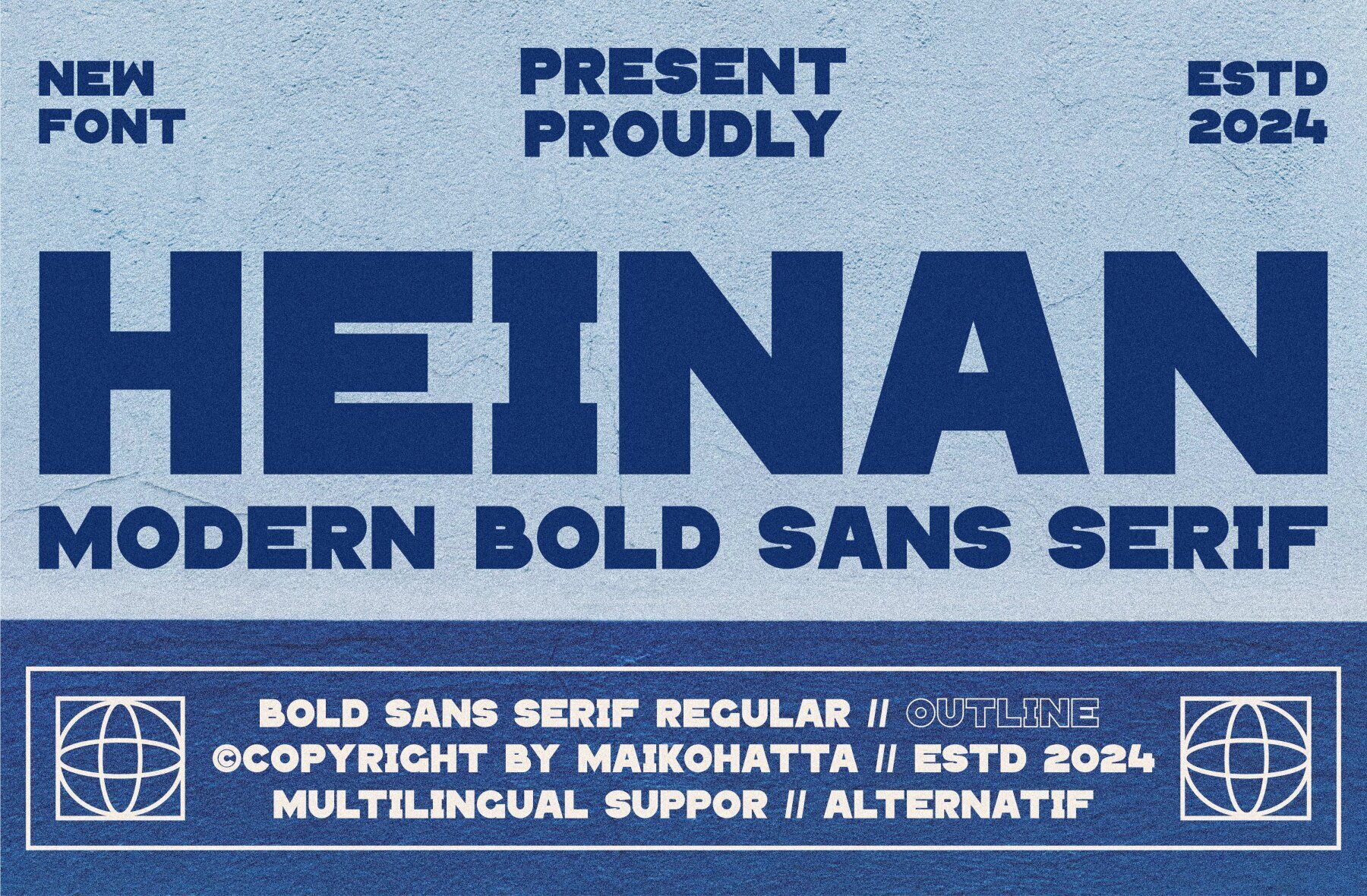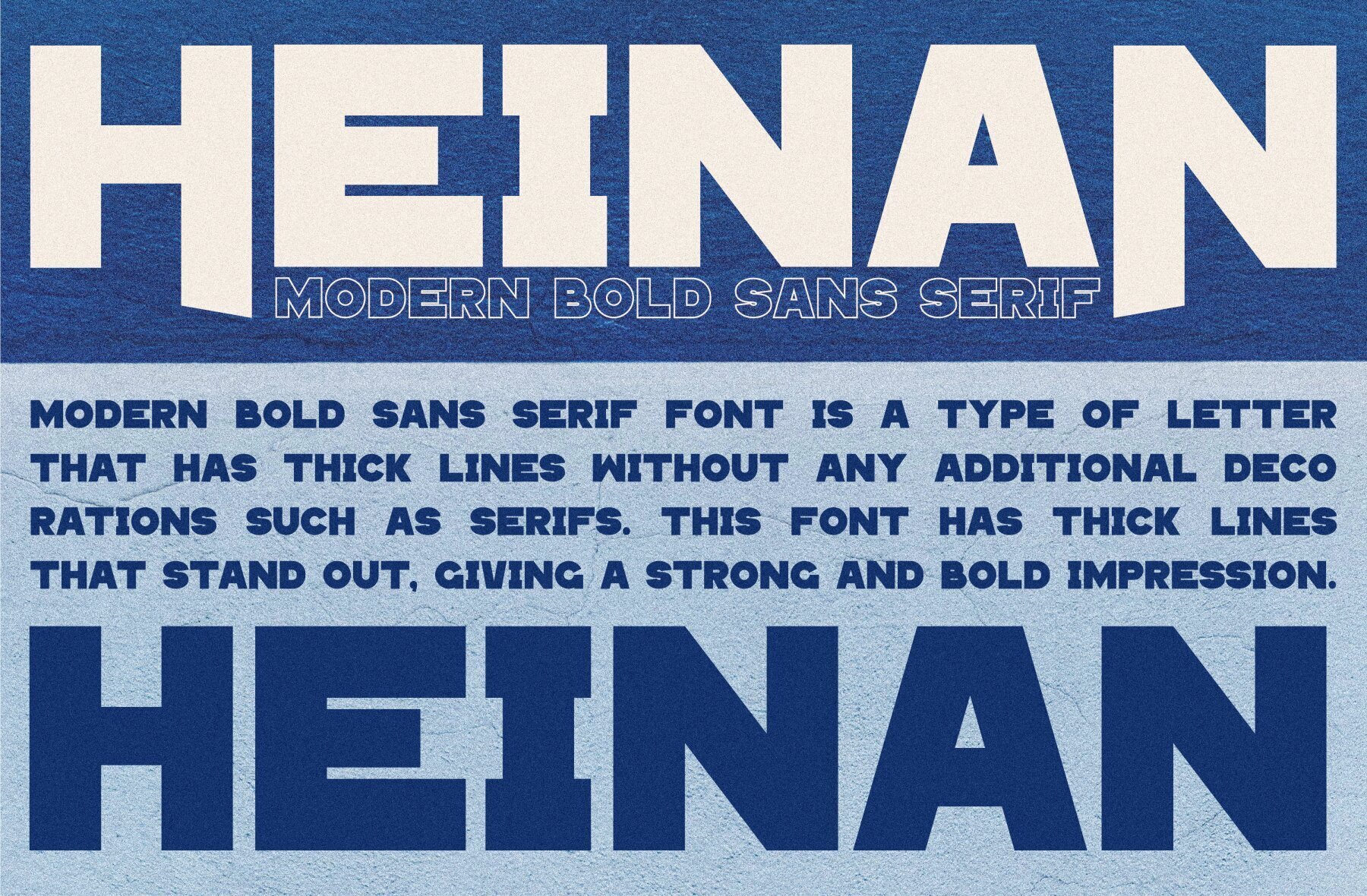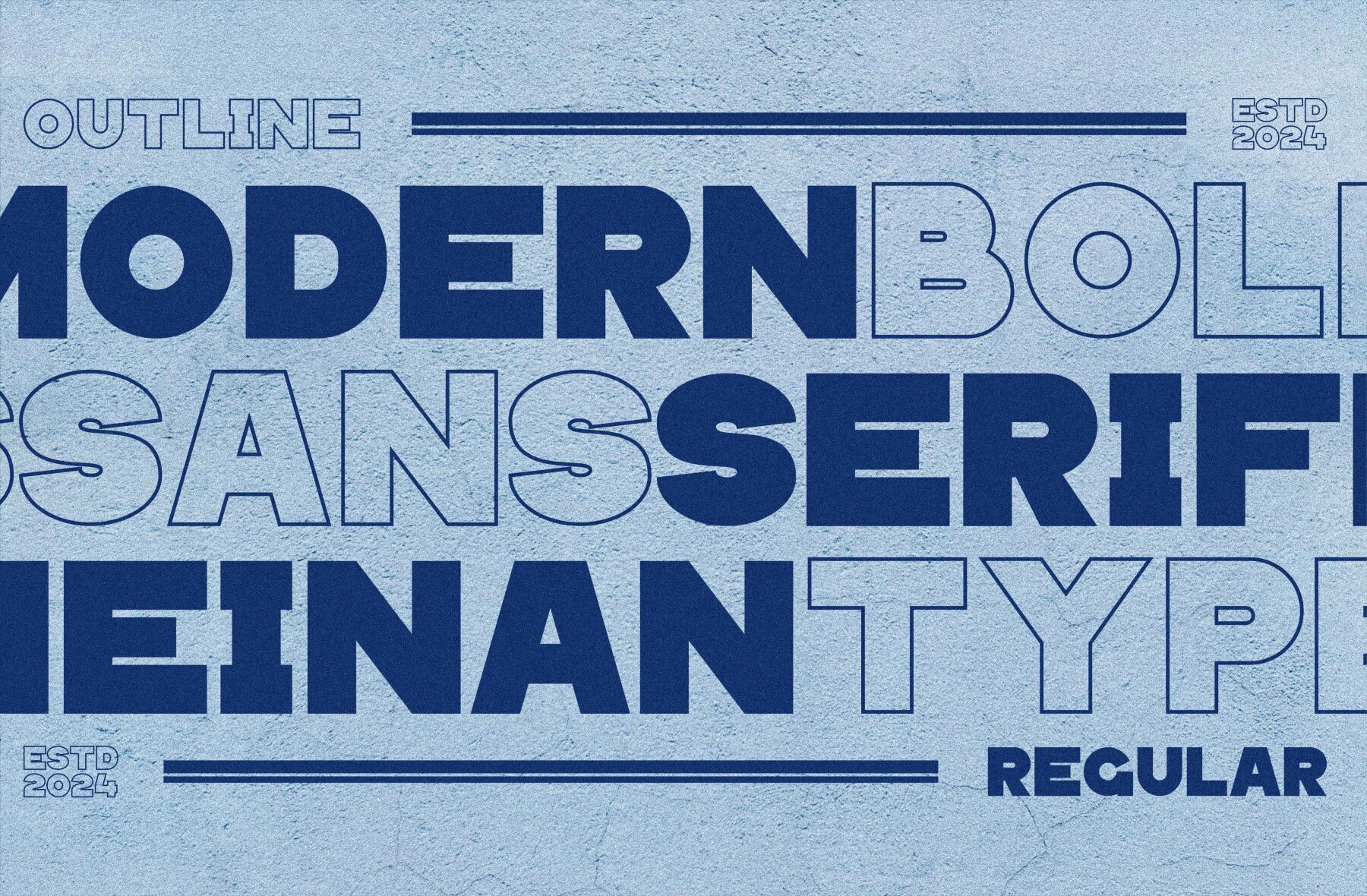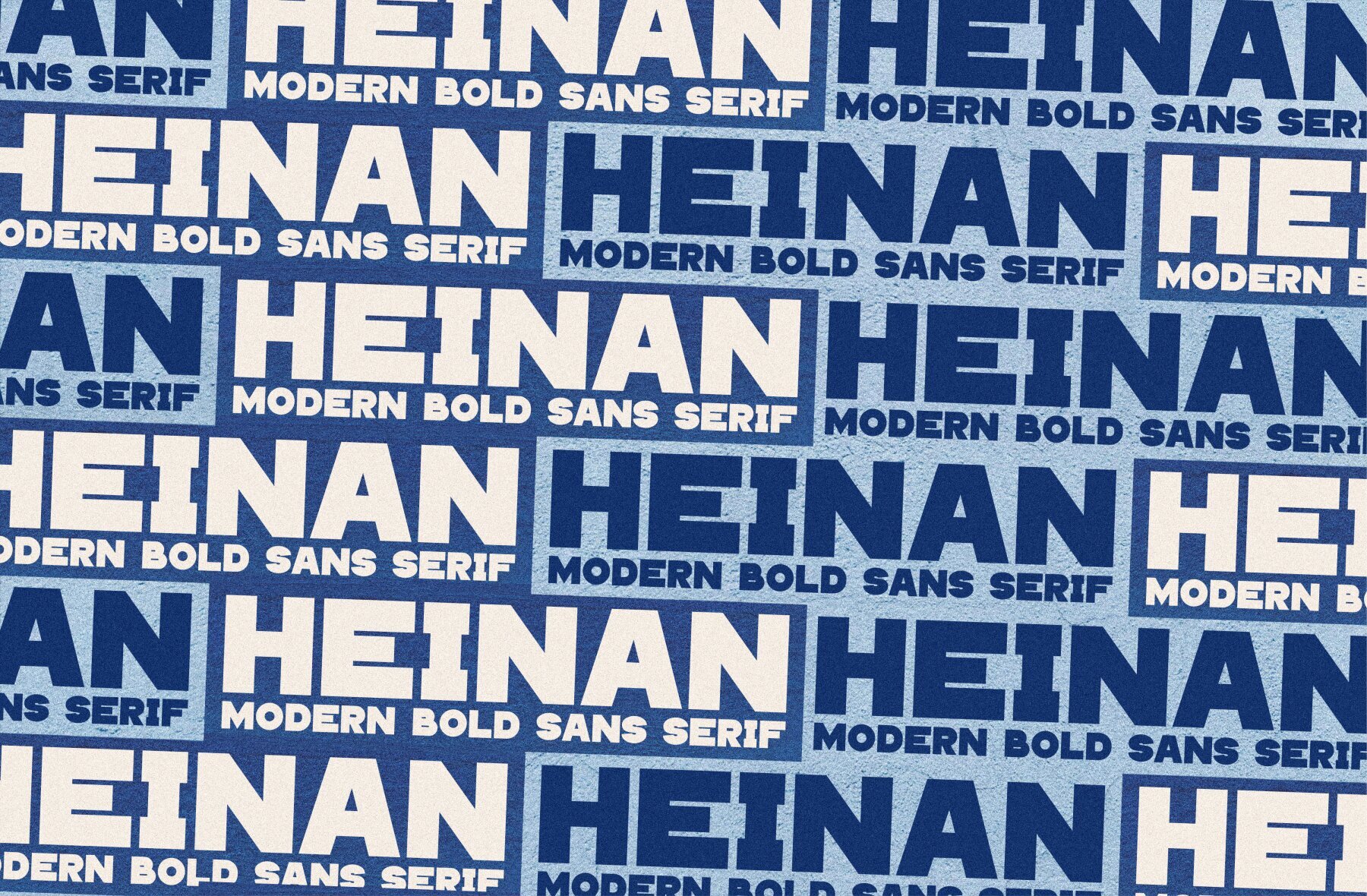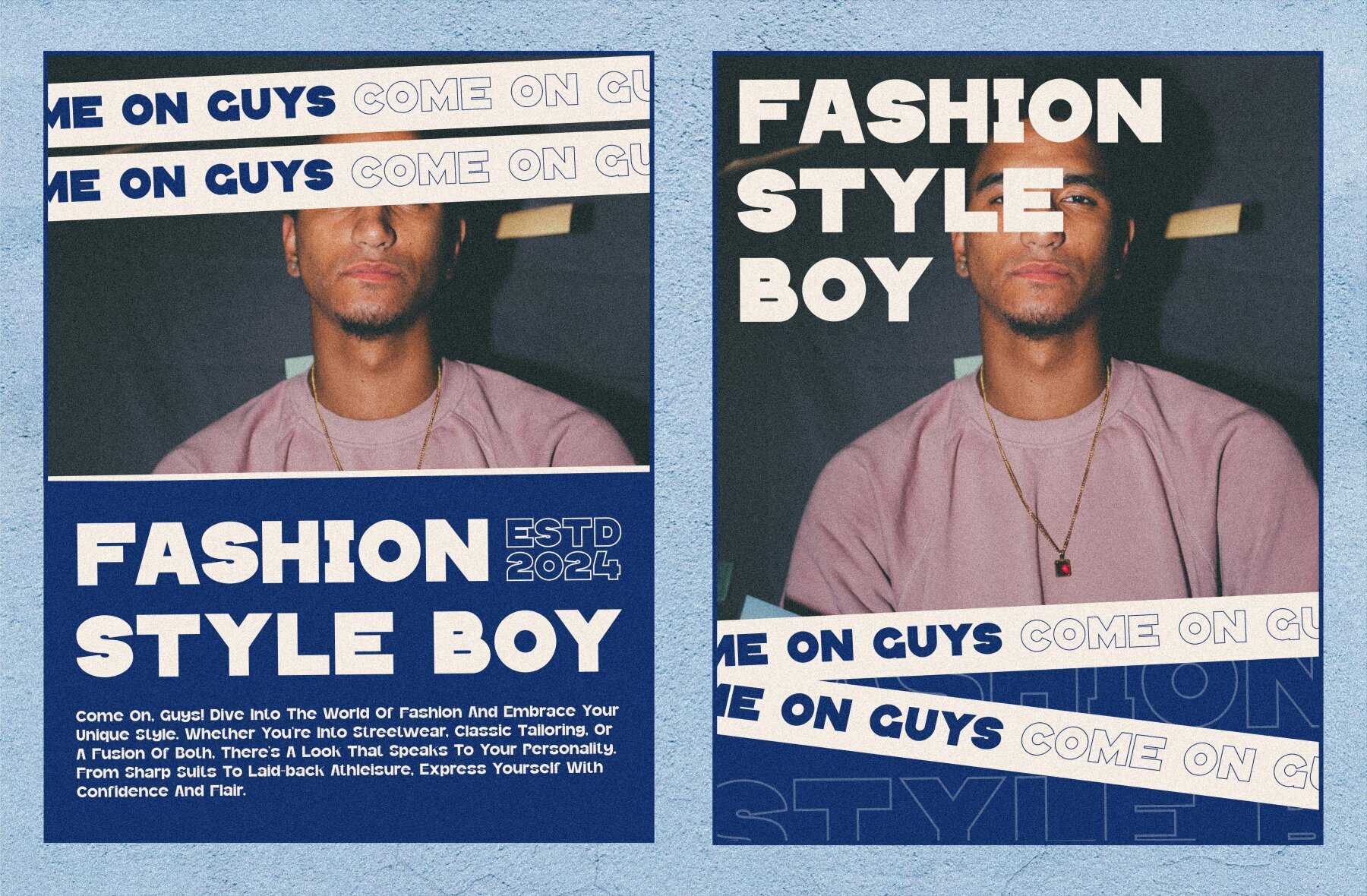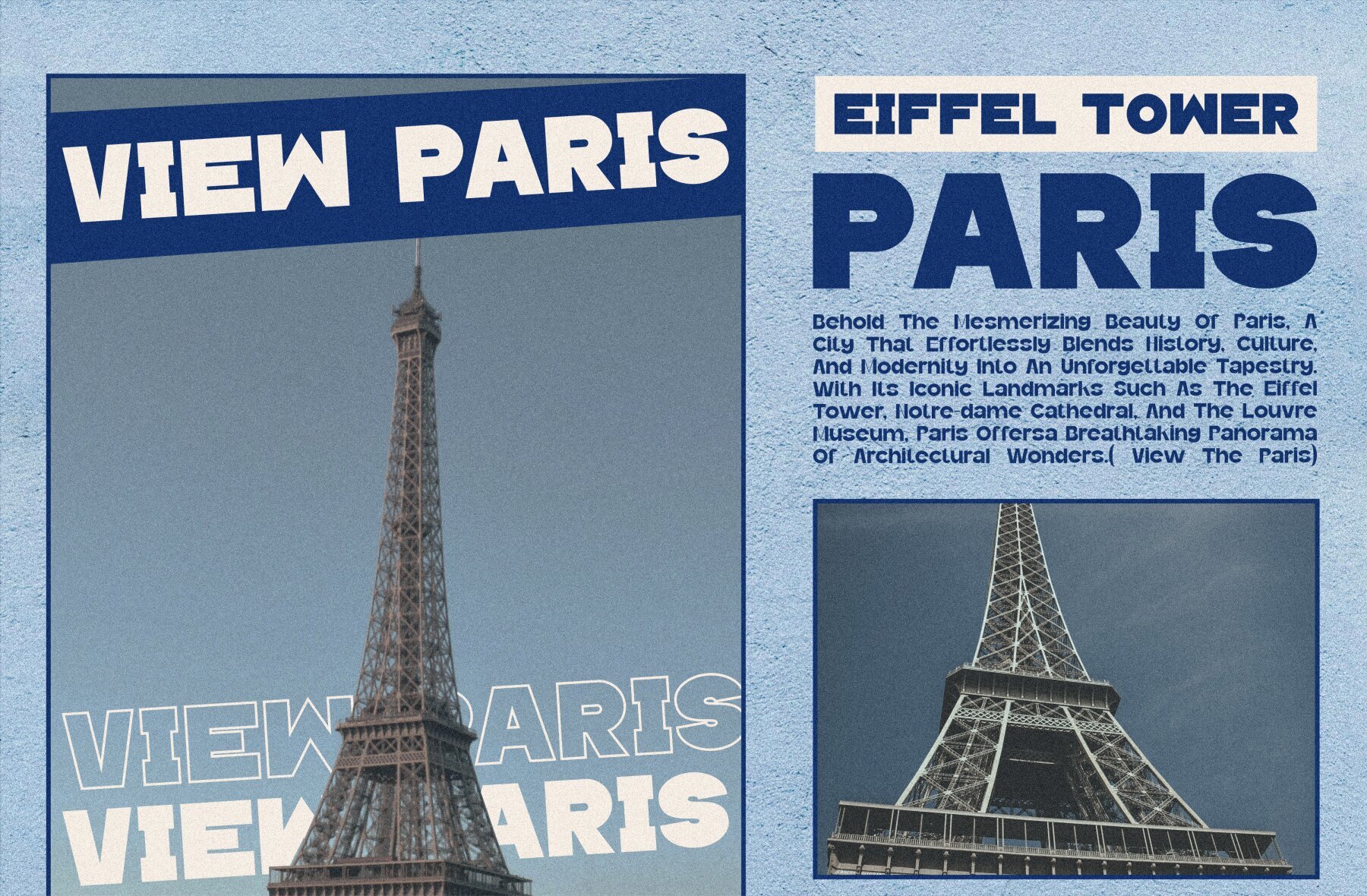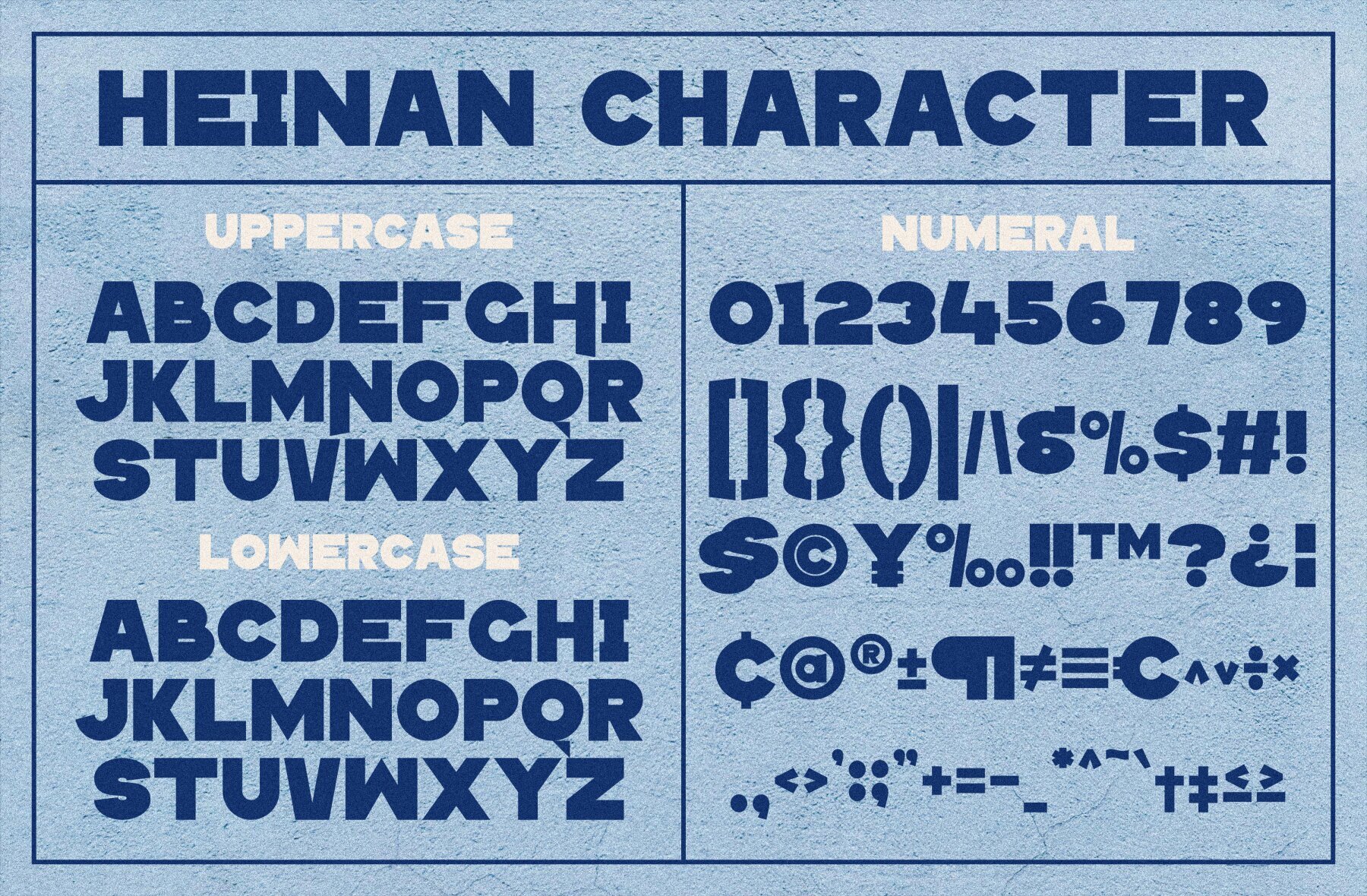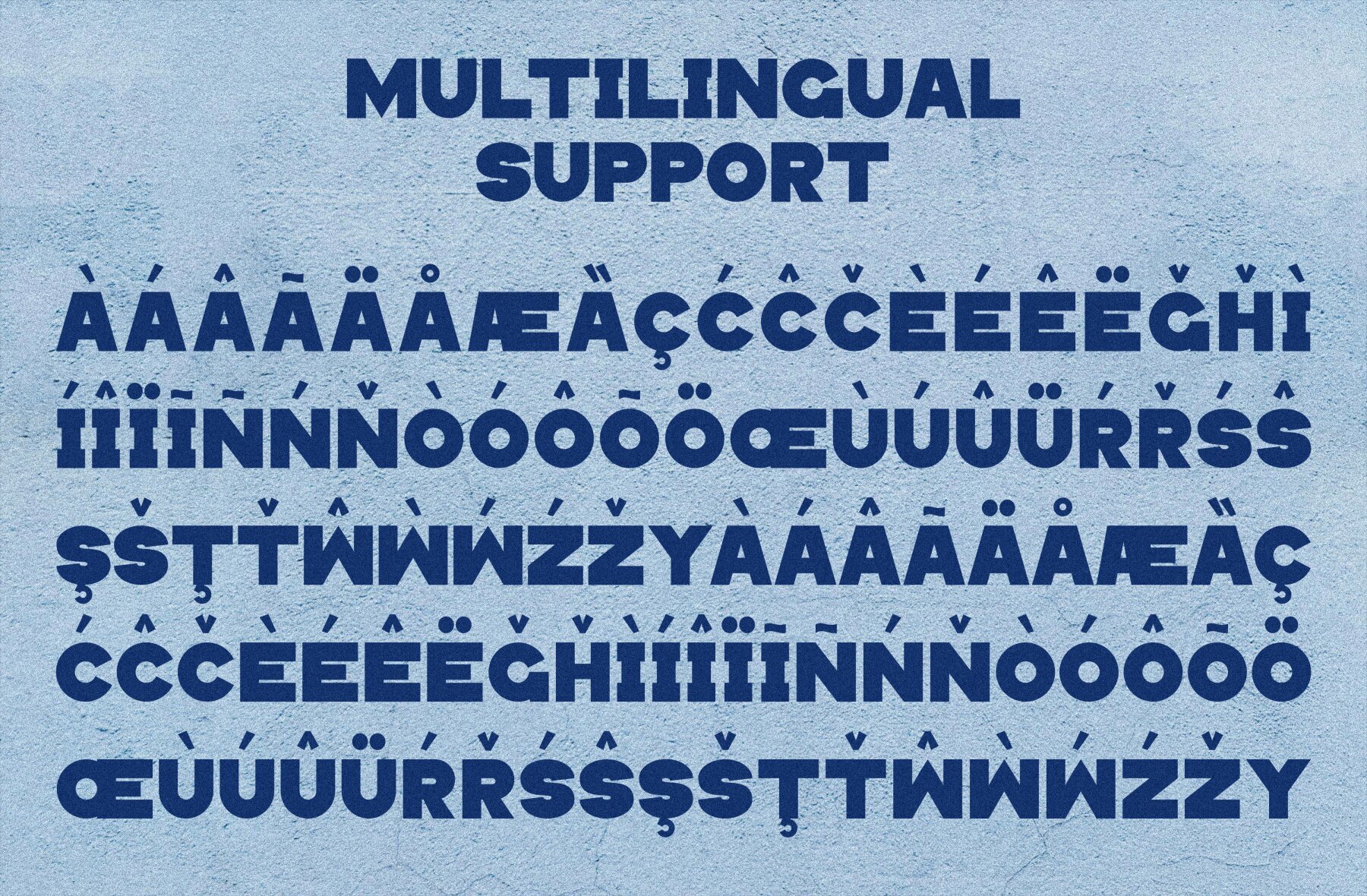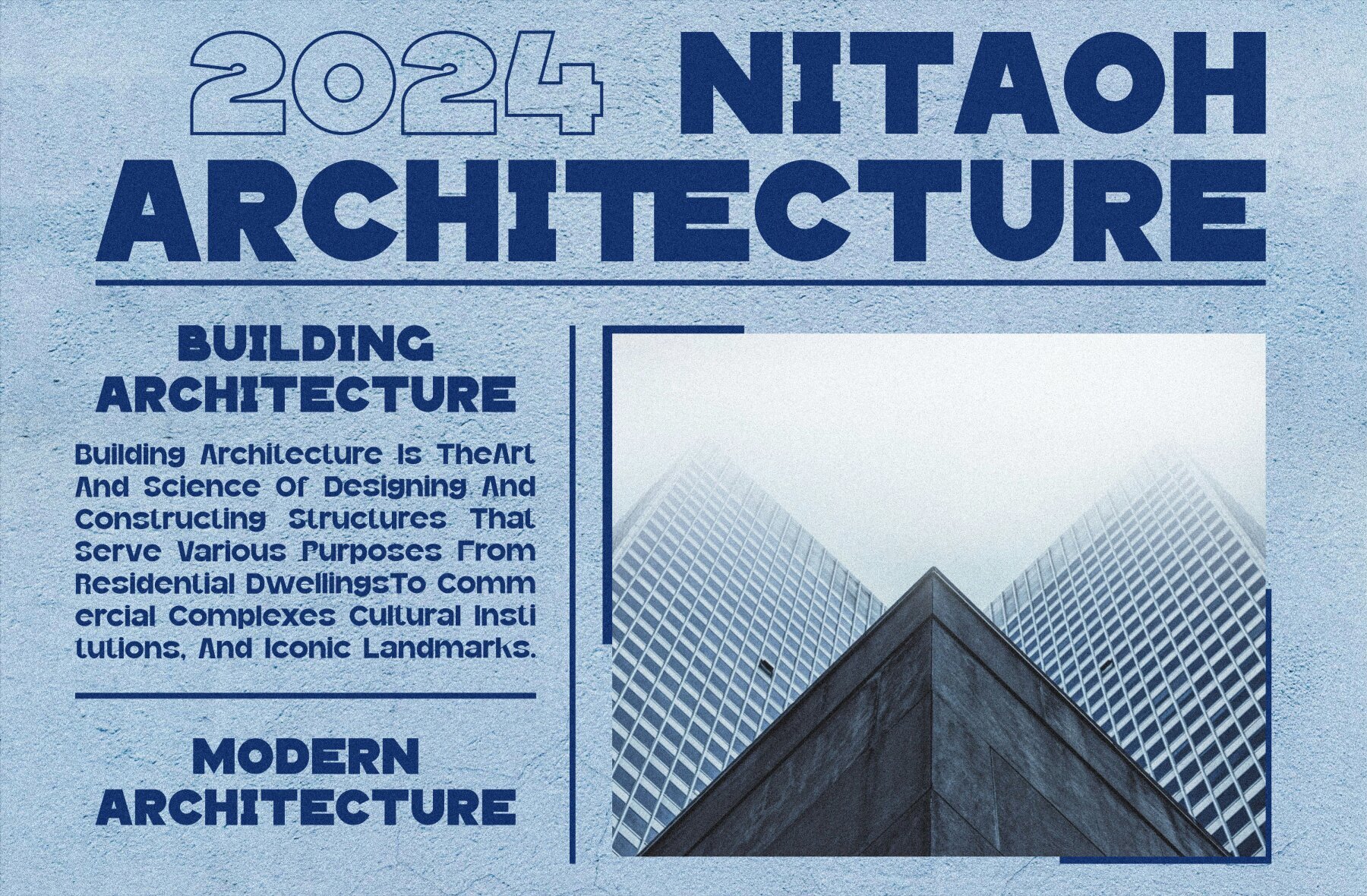
Heinan Font
The Heinan font is a bold and authentic display typeface that suits a variety of branding projects. Perfect for logos, template designs, and esports, it stands out in a wide range of contexts.Heinan: Modern Bold Sans Serif